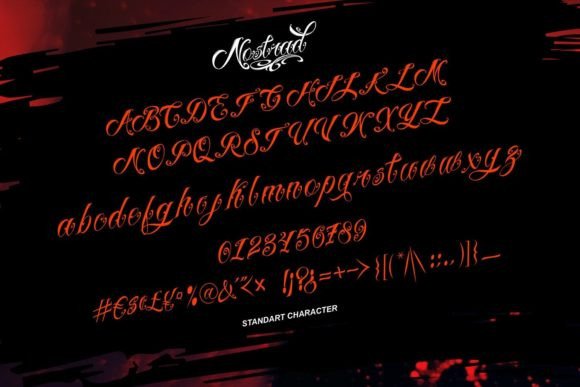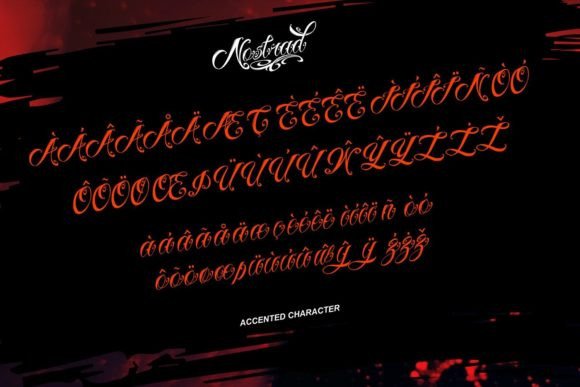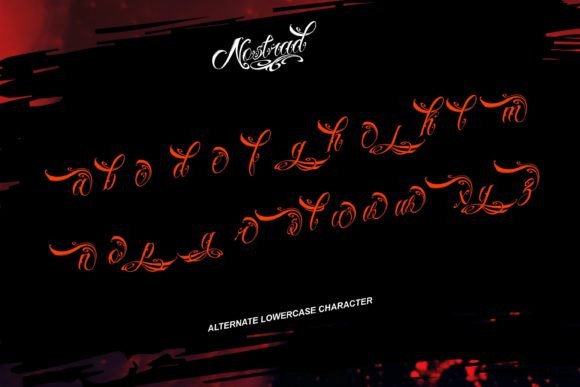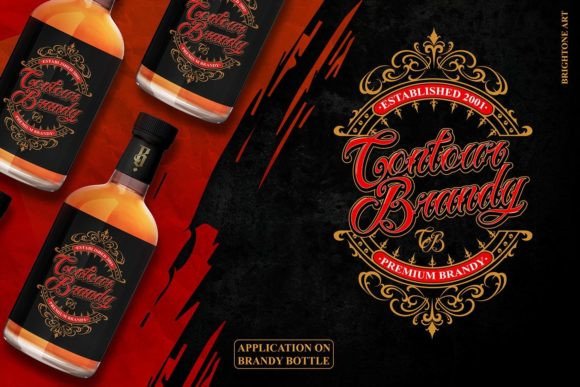
Introduction to Nostrad Font
Have you ever been working on a creative project and stumbled upon that perfect combination of style and elegance that sets it apart from the rest? For designers, this moment is pure magic. It’s the culmination of hours of brainstorming, sketching, and experimenting, all culminating in a single, breathtaking design.
One of the most crucial elements that can elevate a design from good to great is the right font. That’s where the Nostrad Font comes in – a stunning handwritten tattoo font that exudes high quality and sophistication. With its classy touch and versatility, this design resource is perfect for lettering, logos, labels, packaging, stickers, and branding. Whether you’re working on a personal project or a client-based design, the Nostrad Font is an invaluable asset to add to your creative arsenal.
Key Features of Nostrad Font
- High-quality design resource for creative projects, offering a unique and stylish aesthetic.
- Transparent background option allows for seamless integration with any design or image, providing maximum flexibility.
- Available in multiple sizes, including small caps and condensed versions, to cater to diverse design requirements.
- Designed with a high resolution (up to 300 DPI), ensuring crisp and clear text even at larger sizes.
- Perfect for use in a variety of creative projects, including logos, typography, and branding materials.
- Part of a larger font family, offering a range of weights and styles to suit different design needs.
Honest Review: Nostrad Font
I recently stumbled upon the Nostrad Font and I must say, it’s a fantastic addition to any design resource. With a high quality aesthetic, this font is perfect for any creative project that requires a touch of elegance and sophistication.
- ✨ The font comes with a transparent background, making it super easy to use in any design scenario.
- ✨ The design is modern and sleek, perfect for branding, logos, and other creative projects.
However, I do have to mention a few limitations:
- ⚠️ The font doesn’t come with a large character set, which might be a drawback for designers who need a wide range of glyphs.
- ⚠️ The font is not suitable for small text sizes, as the lines can become blurry and difficult to read.
Overall, I’m really impressed with the Nostrad Font. It’s a fantastic design resource that can elevate any creative project. With its high quality design and transparent background, it’s a must-have for any designer. Just be aware of its limitations and use it accordingly.
Nostrad Font
With its unique and creative style, Nostrad Font is ideal for a variety of projects, from social media graphics to presentations and marketing materials.
With its transparent background, Nostrad Font is easy to use and can be layered over images or other design elements to create a seamless and professional look.
To use Nostrad Font in PowerPoint or Word, simply install the font file and select it from the font menu. Nostrad Font is a creative project resource that’s perfect for presentations and documents that require a unique and visually appealing font.
With its high-quality design and transparent background, Nostrad Font is a great choice for anyone looking to add a touch of creativity to their projects.
Tips for Getting the Most Out of Nostrad Font
Use Nostrad Font in combination with other design elements, such as images and graphics, to create a visually appealing and cohesive design.
Experiment with different font sizes and styles to find the perfect look for your project.
Nostrad Font is perfect for a variety of projects, including social media graphics, presentations, marketing materials, and more.
Use Nostrad Font to add a touch of creativity and visual appeal to your designs and projects.